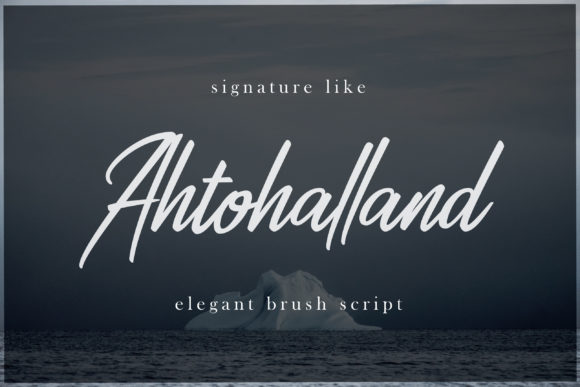
Unleash the captivating essence of Ahtohalland, a script font crafted with a touch of elegance and a dash of beauty. Immerse yourself in its enchanting swirls and graceful lines, perfect for infusing a touch of authenticity into your design endeavors.
This exquisite font family dances across your screen, bringing life to your words. Its charming curves and delicate strokes evoke a sense of nostalgia, transporting you back to a time of handwritten letters and heartfelt messages. Ahtohalland is not just a font; it's a timeless treasure that will add a touch of grace to any project.
Whether you're crafting an enchanting invitation, designing an unforgettable logo, or simply adding a touch of whimsy to your social media posts, Ahtohalland will captivate your audience. Its versatility knows no bounds, making it the perfect choice for a wide range of creative projects.